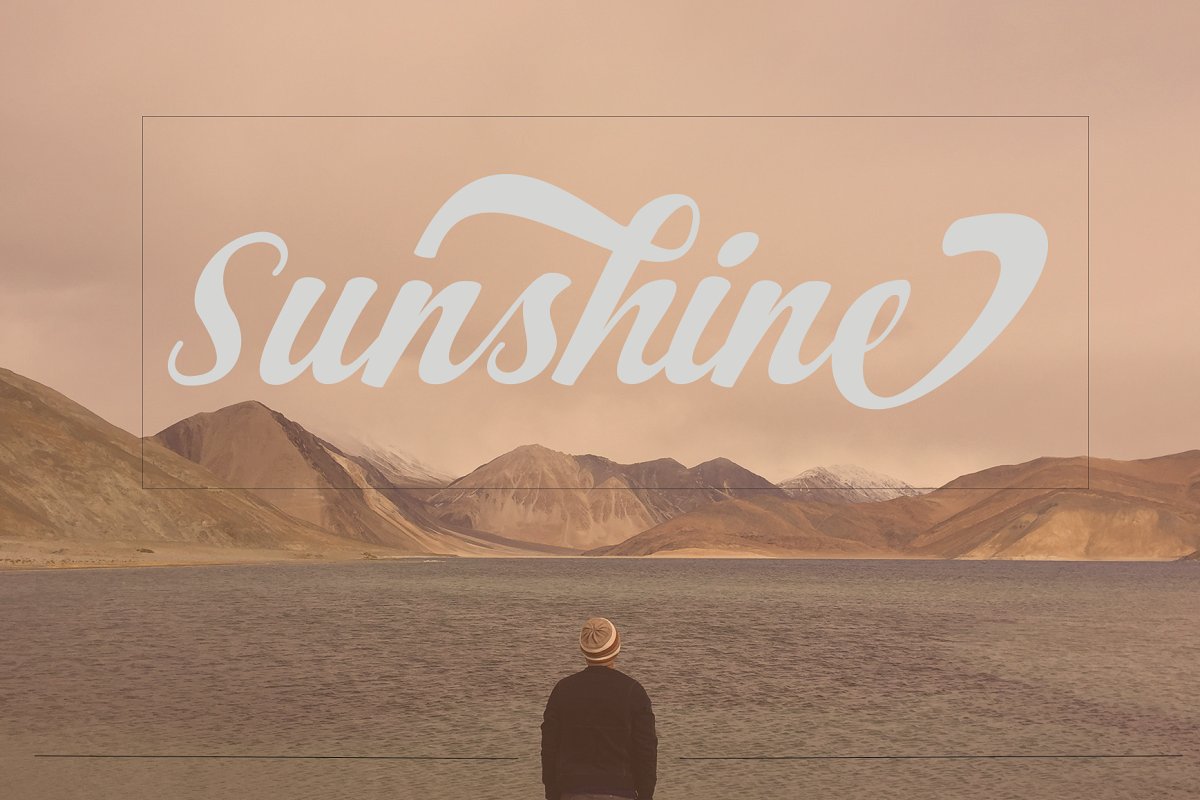
Alexander Script Font
Hello Guys! This is a classy script font with an timeless look. Introducing Alexander Typeface. Fonts are designed and shared by Old_Studio. Alexander is a script typeface with personality. You can use it as a logo, badge, insignia, packaging, headline, poster, t-shirt/apparel, greeting card, and wedding invitation. The flowing characters are ideal to make an attractive messages, mix and match Montana with a bunch of alternative characters to fit your project.